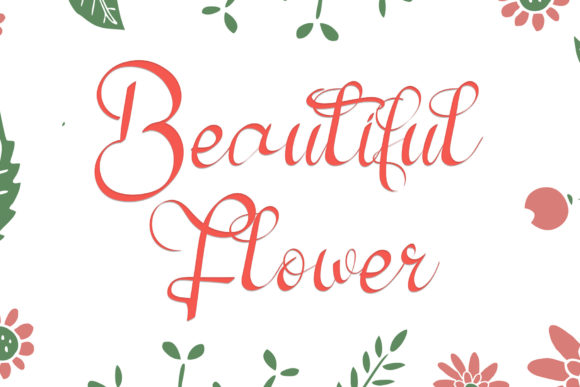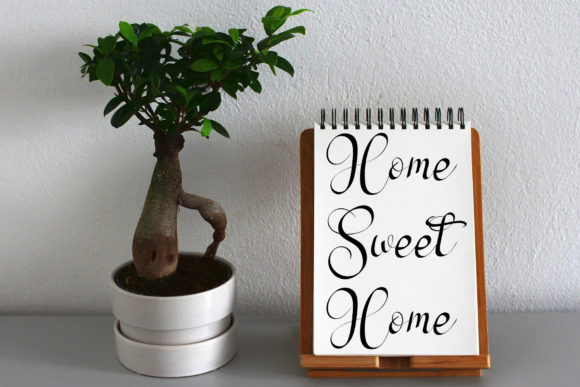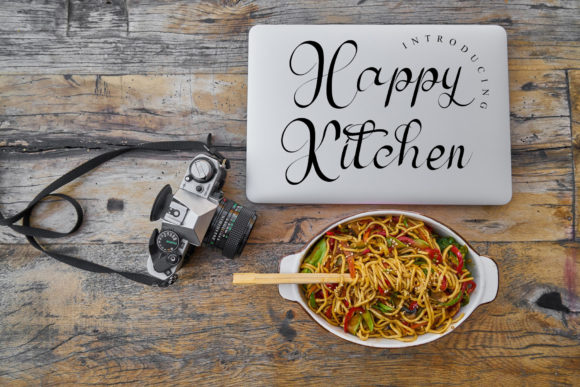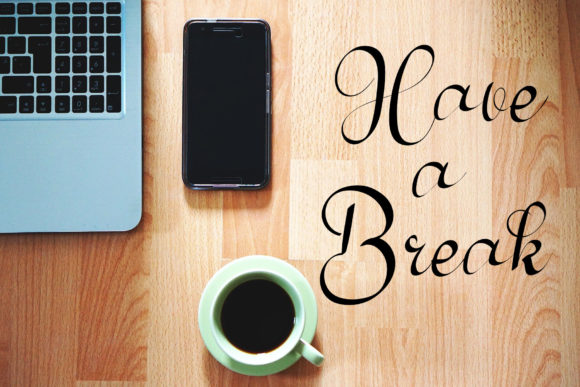
About Beautiful Flower Font
Beautiful Flower is a sweet and delicate handwritten font. Dainty and joyful, this font will be ideal for writing wedding invitations, cards or any other design that may need a romantic, personalized touch!